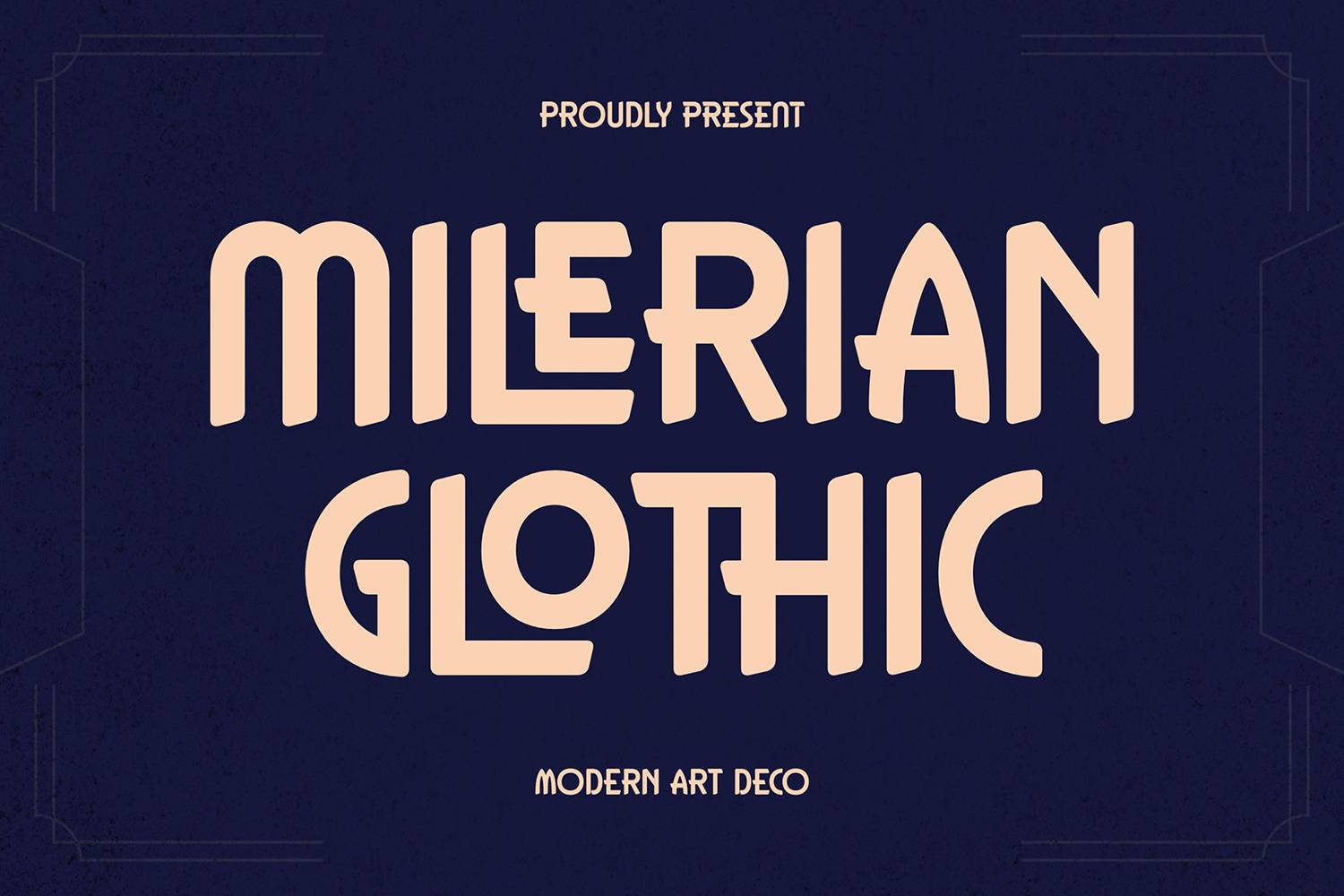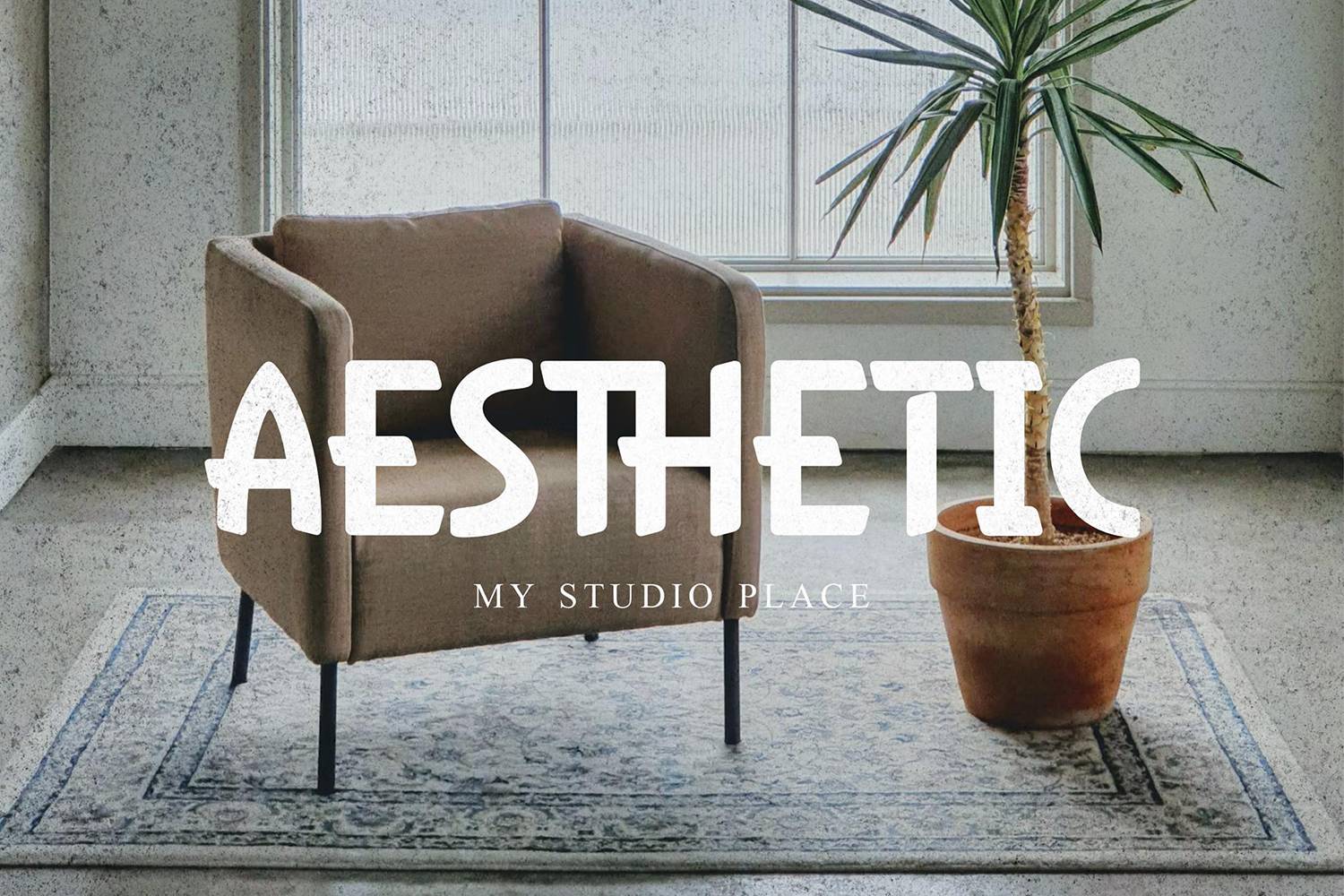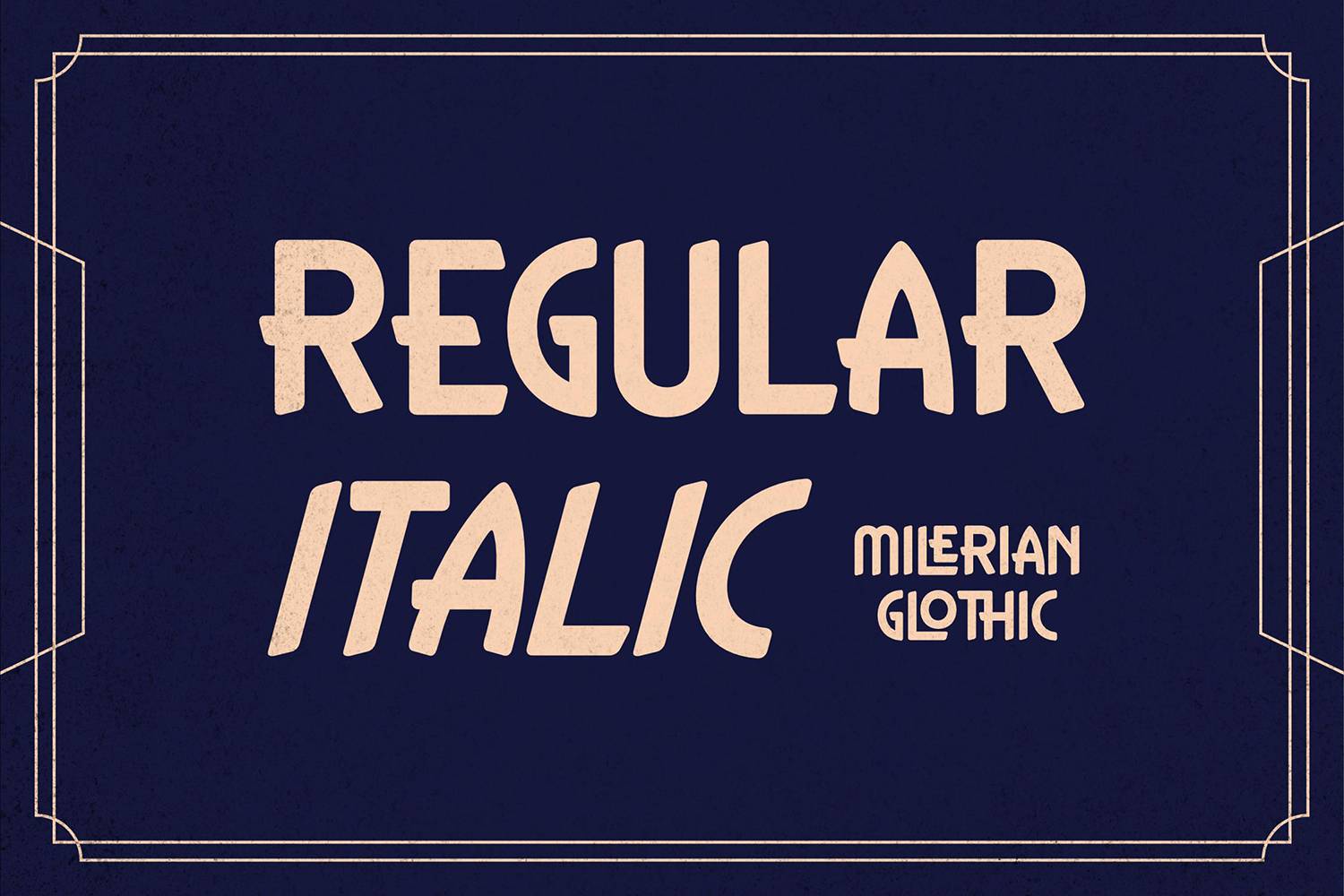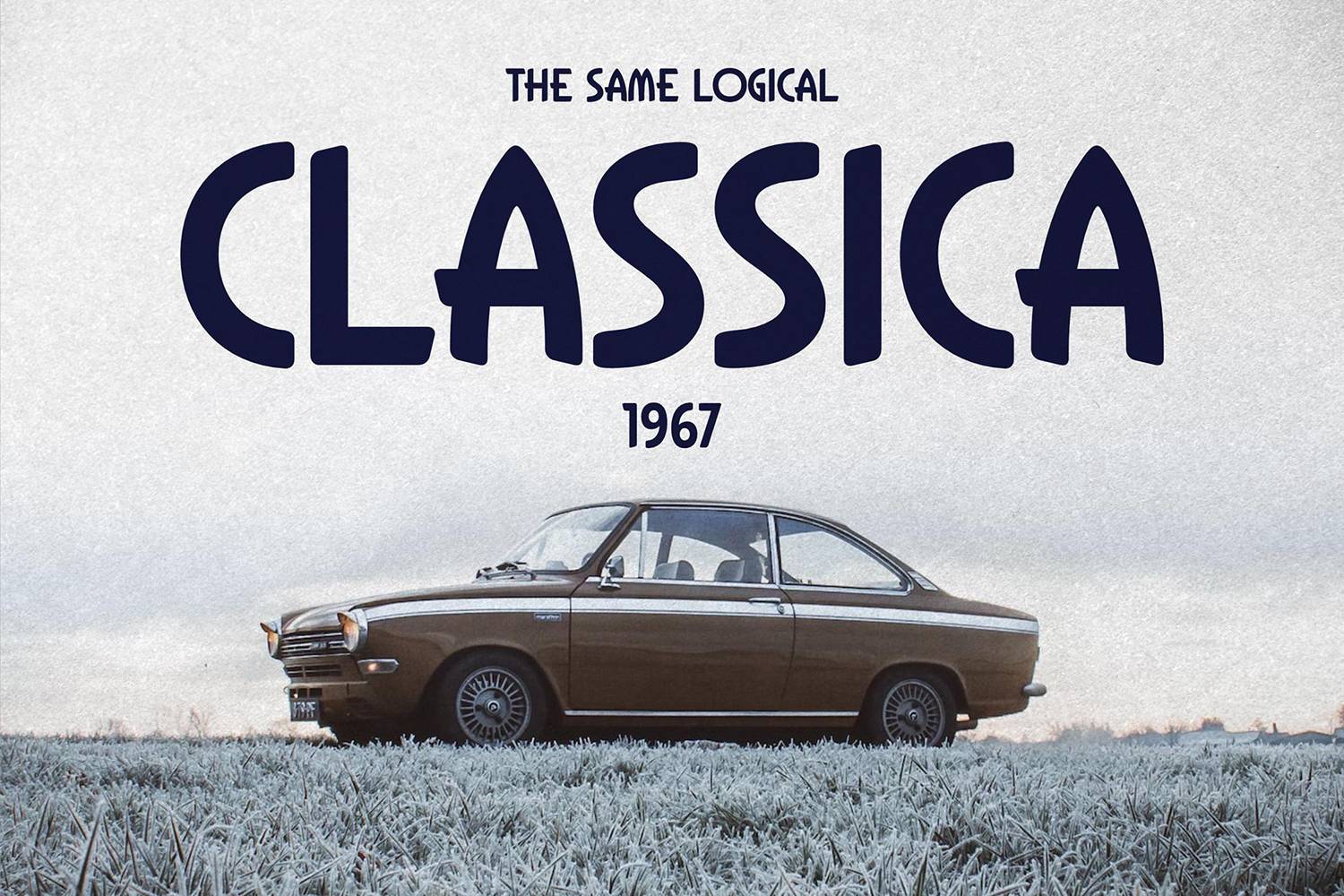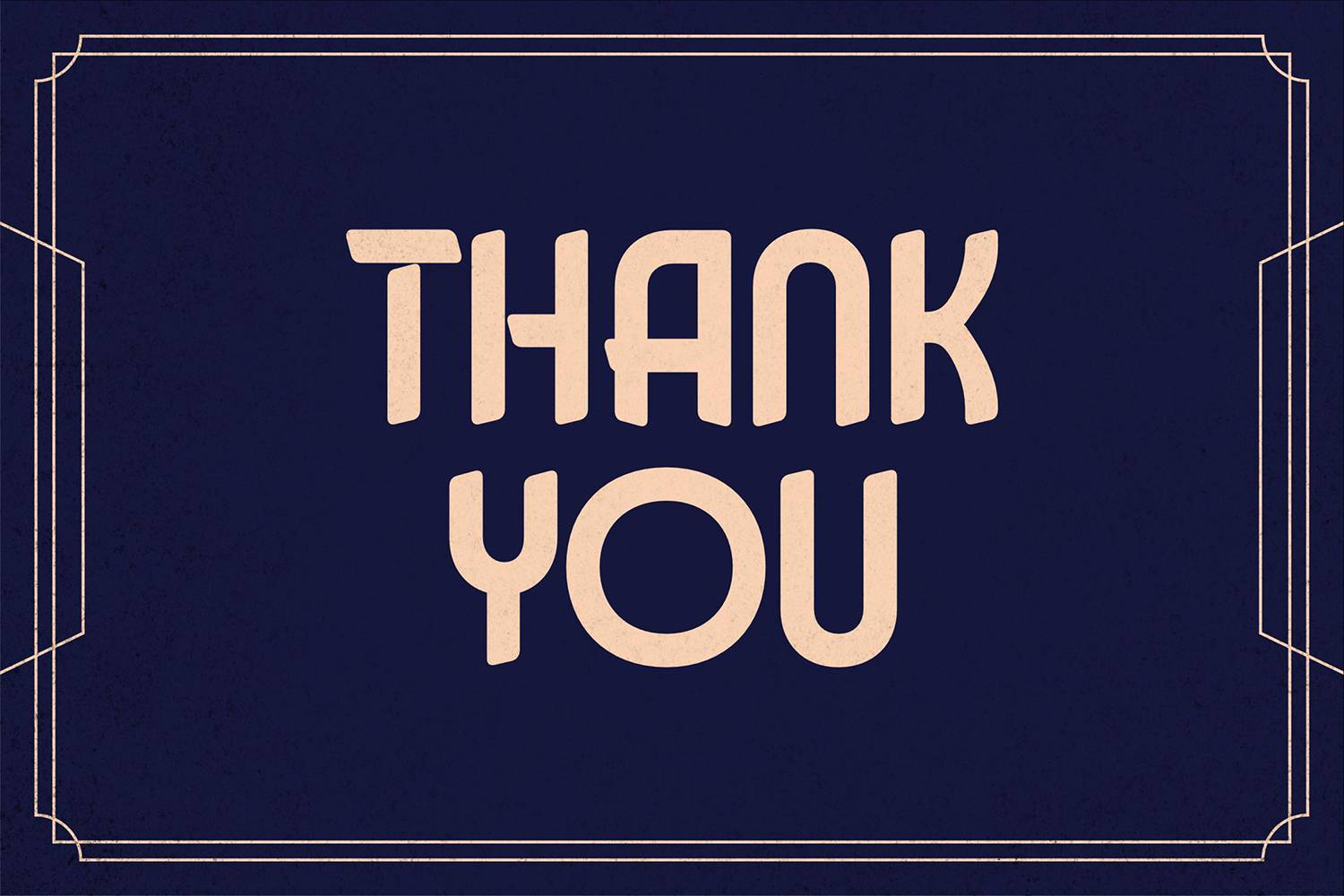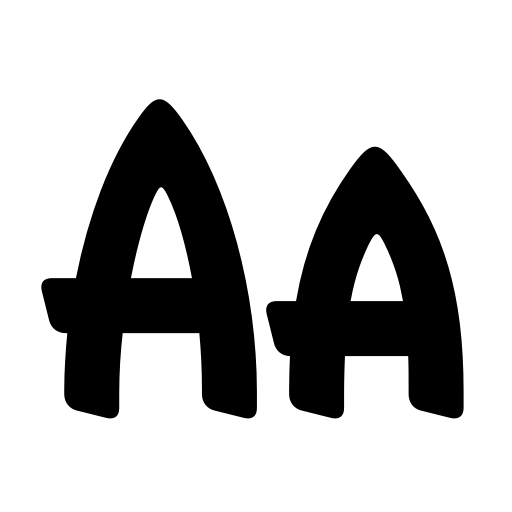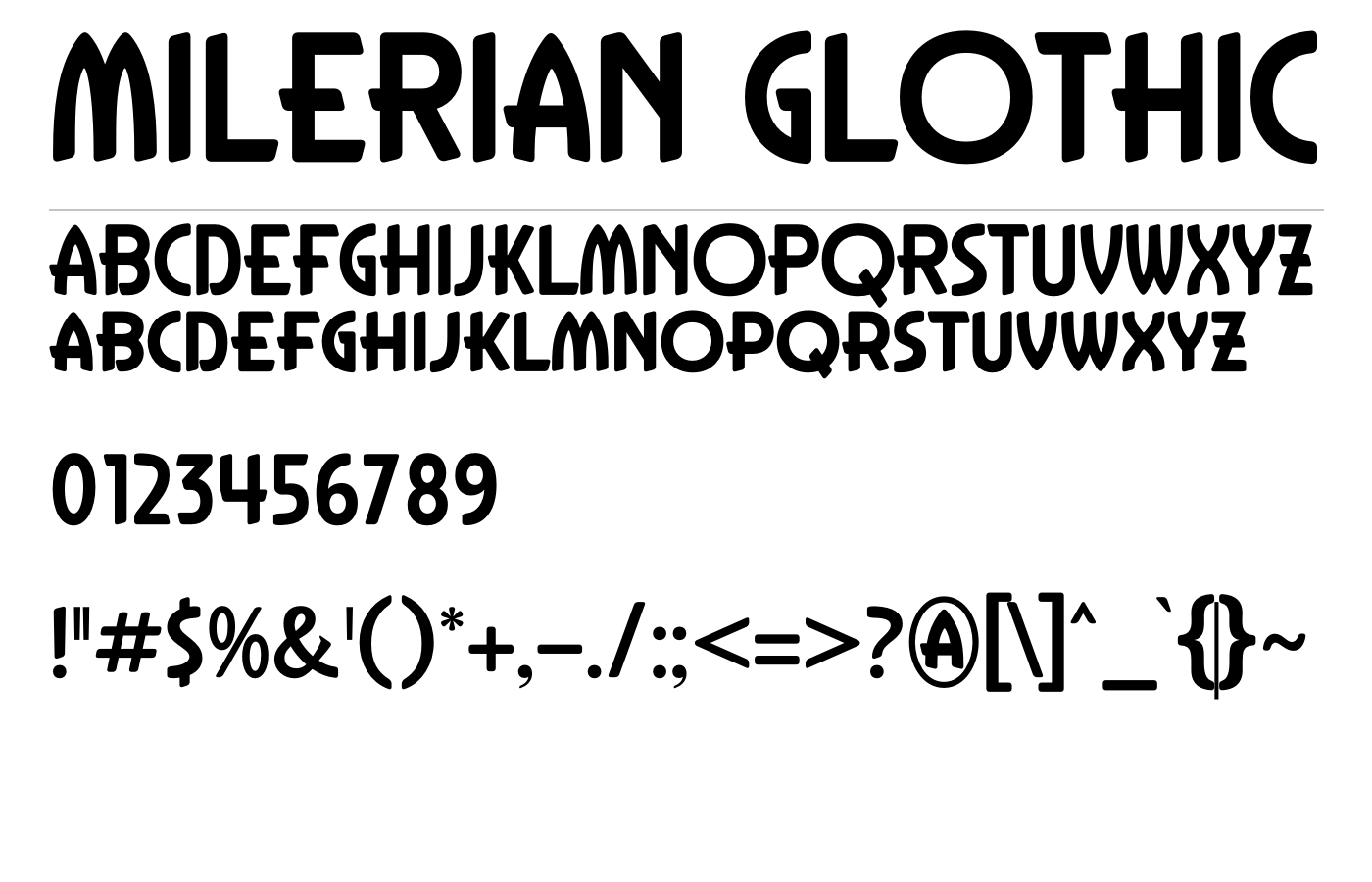
Milerian Glothic is a distinctive sans serif font with a playful, slightly quirky personality conveyed through its irregular, rounded letterforms and varied stroke widths. Its bold weight and compact spacing make it ideal for eye-catching headlines, logos, and creative branding projects that want to stand out with a fun yet modern vibe. This font works especially well in designs targeting youthful or artistic audiences, giving a unique touch without sacrificing readability.
Milerian Glothic Font
About Milerian Glothic Font